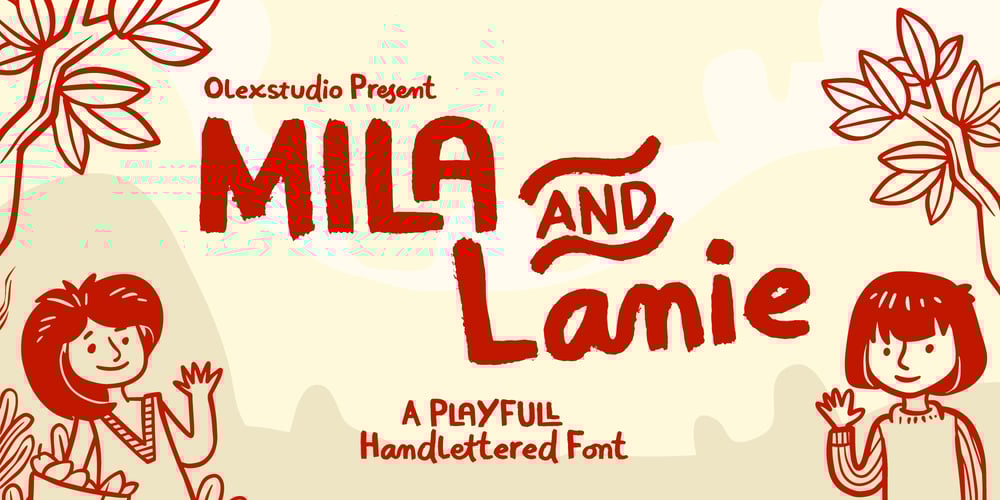
Mila and Lanie Font Family was designed by Firman Syah and published by Olexstudio. Mila and Lanie contains 1 styles and family package options. Mila and Lanie – Handlettered font will look gorgeous on all your designs, invitation, poster design, book design, branding materials, logo’s, t-shirt and all project design other.WHAT’S INCLUDEDMila and Lanie – Handlettered font contains standard characters, Lowercase, Uppercase, numbers, punctuation, ligatures and international glyphs.Thanks! enjoy designed